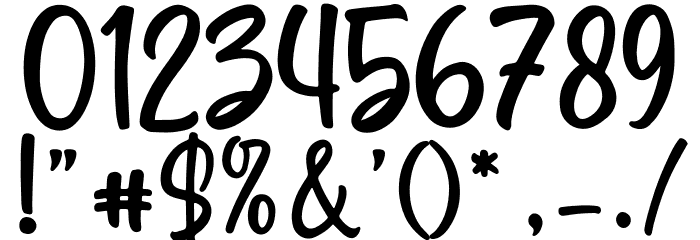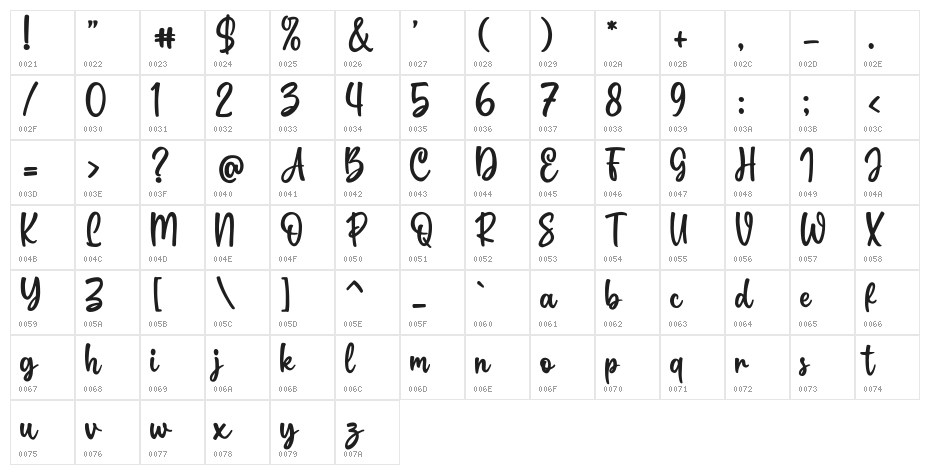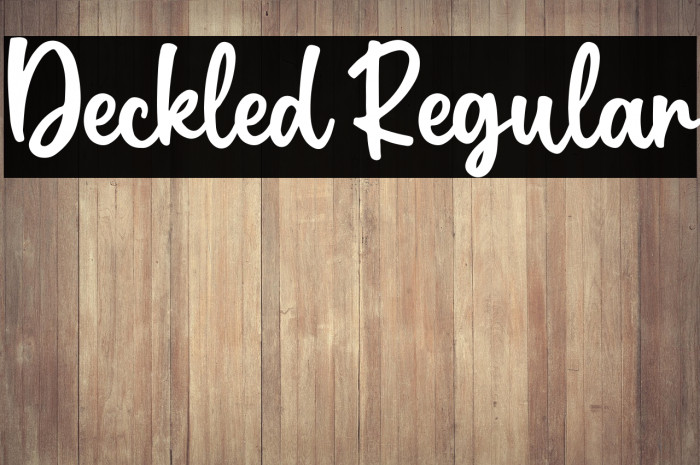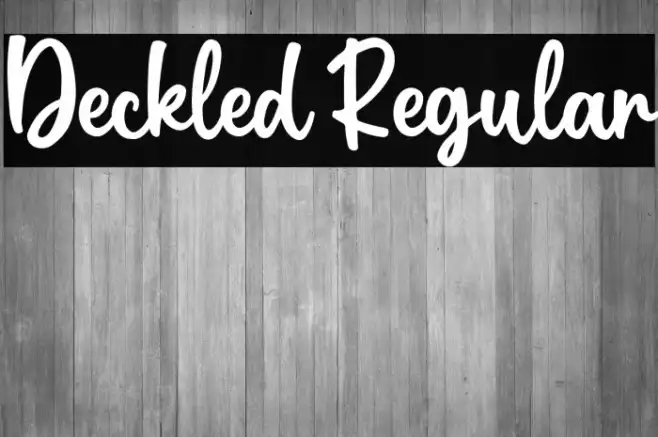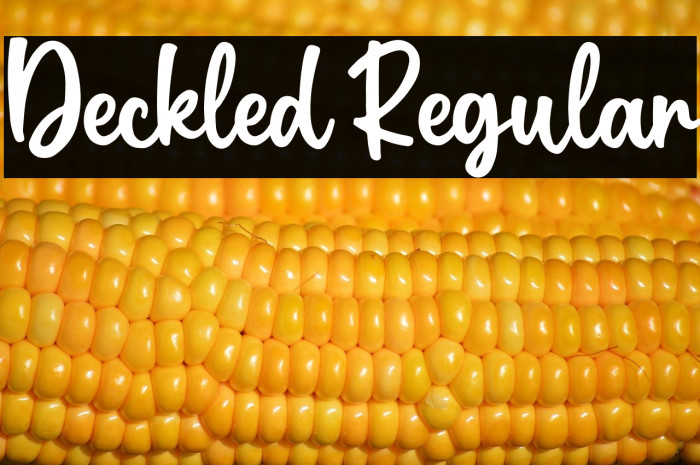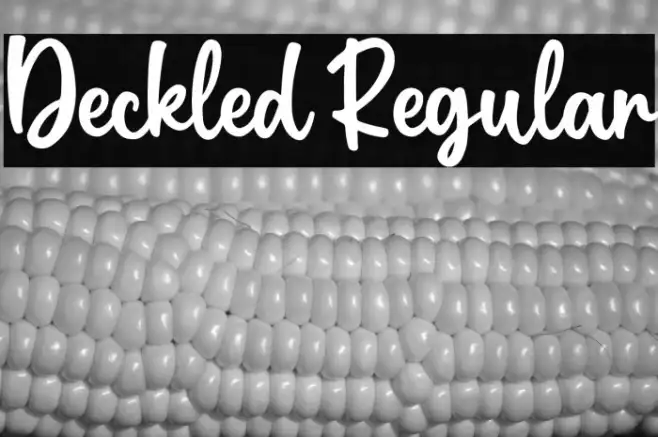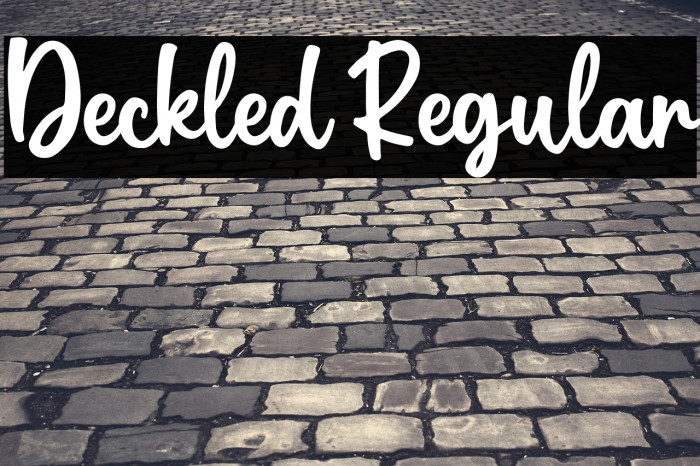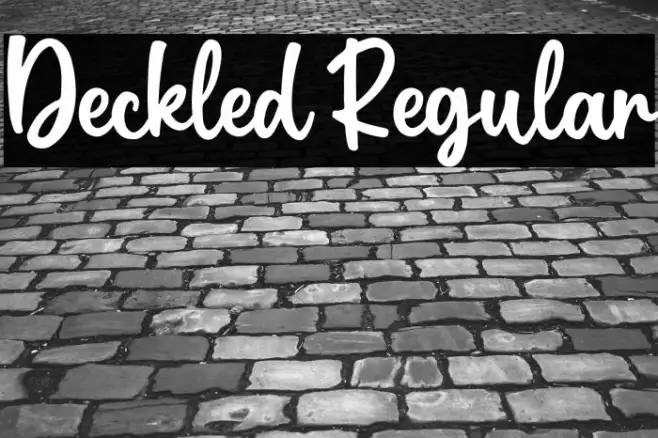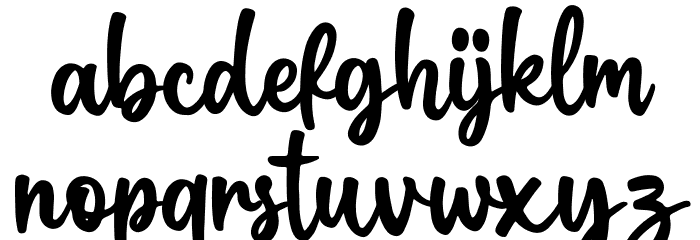
Deckled Regular Font
Deckled Regular Description
This font features a playful and energetic script style with a hand-drawn appearance. The letters are bold and rounded, giving them a friendly and approachable look. The uppercase characters are slightly taller than the lowercase, maintaining a consistent flow throughout. The strokes are smooth with a medium contrast, adding to the dynamic feel of the font. The numbers and special characters are designed to match the lively style of the letters, making them suitable for various creative applications. The overall design is cohesive, with a sense of movement and rhythm that enhances its visual appeal.
| Proposed Projects | Ideal for greeting cards, playful branding, children's books, and social media graphics. |